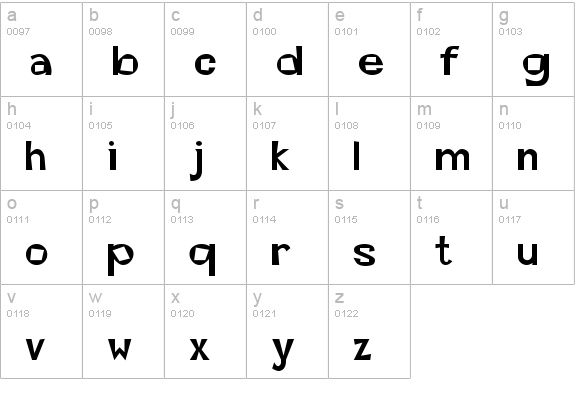
Onedin Font Details
Onedin font is a beautifully crafted typeface that exudes elegance and sophistication. Its sleek and modern design makes it perfect for a wide range of design projects, from branding to editorial layouts. The graceful curves and sharp lines of Onedin font create a sense of timeless style that will elevate any text it is applied to. What makes Onedin font even more appealing is that it is available for free download at FontsMarket.com. This means that you can easily access this stunning font and use it in your projects without any cost. Whether you are a designer looking to add a touch of class to your work or a business owner wanting to enhance your branding, Onedin font is the perfect choice. Download it today and discover the endless possibilities it offers for your creative endeavors.